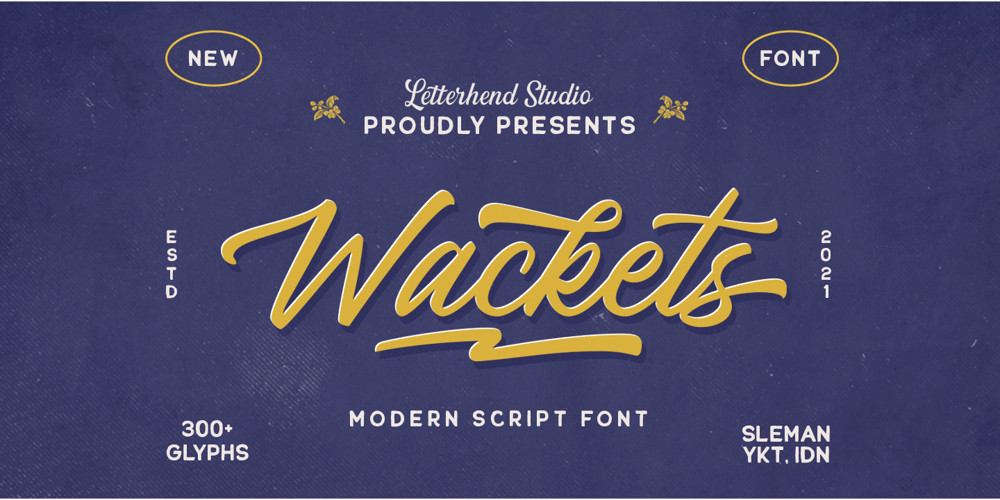
Wackets Font Family was designed by Hendry Juanda and published by Letterhend. Wackets contains 1 styles and family package options. Wackets is a standout script with a touch of vintage look and feel. This type of font perfectly made to be applied especially in logo, headline, signage and the other various formal forms such as invitations, labels, logos, magazines, books, greeting / wedding cards, packaging, fashion, make up, stationery, novels, labels or any type of advertising purpose.Features : uppercase & lowercase numbers and punctuation multilingual alternates / swashes and ligatures PUA encoded